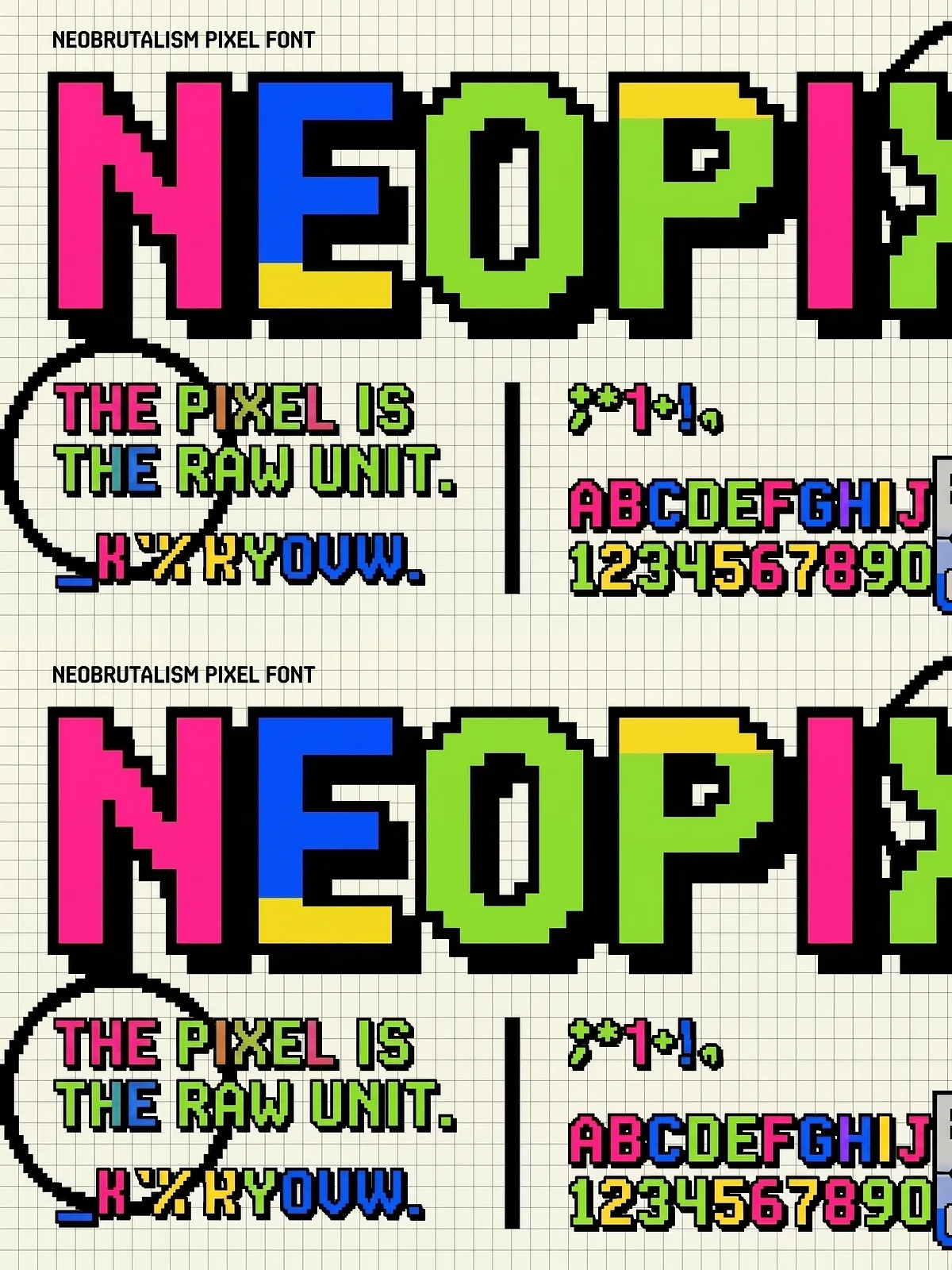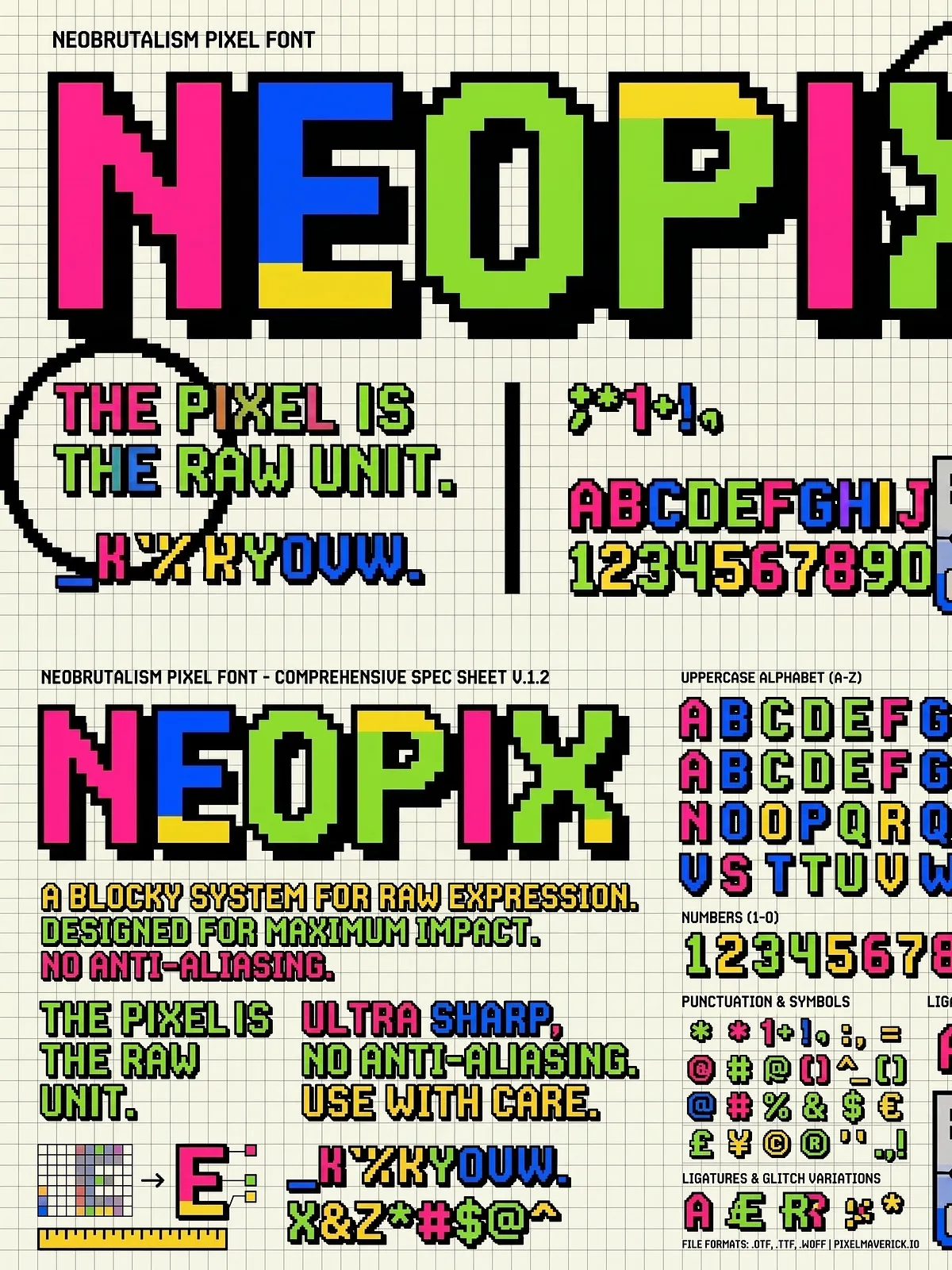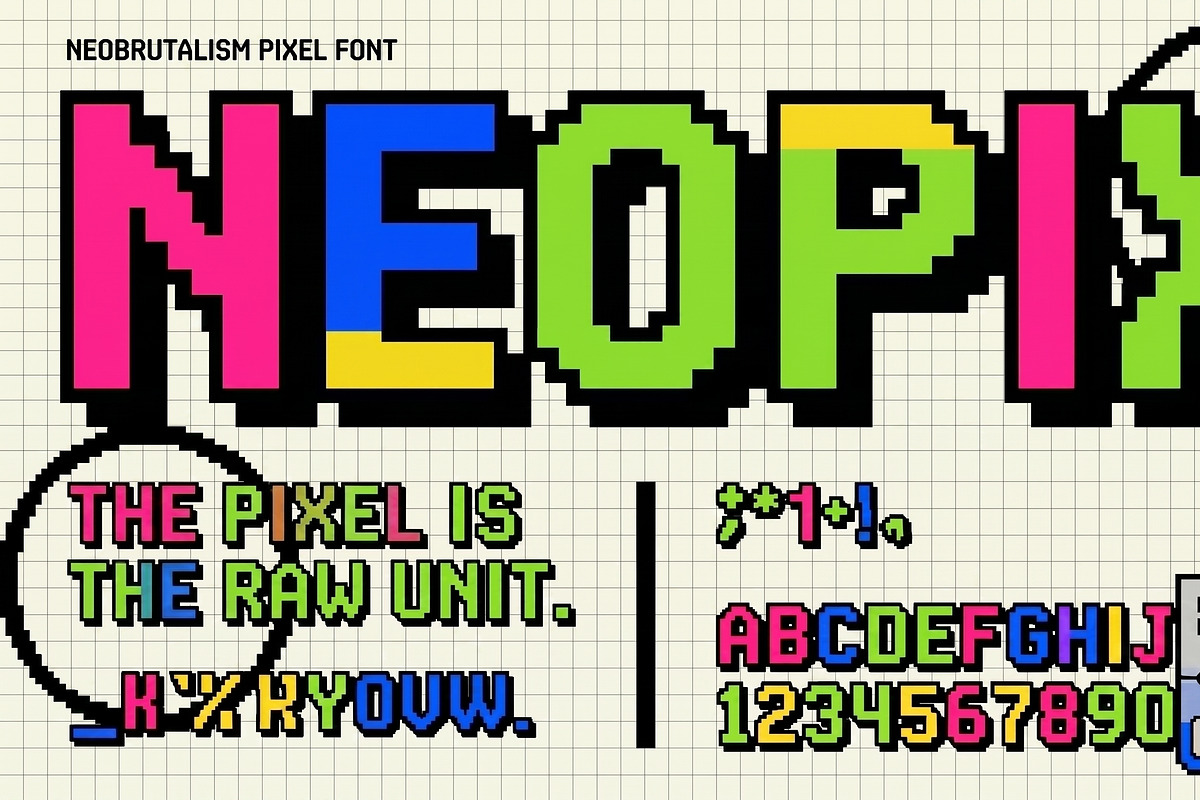
NEOPIX delivers unapologetic, pixel-powered personality. This display font fuses the raw, blocky intensity of neobrutalism with the playful geometry of classic 8-bit pixel art. Chunky letterforms, thick outlines, and crisp pixel edges combine to create a typeface that demands attention and holds it. Designed for large-scale headlines and display treatments, NEOPIX injects retro-digital energy into modern branding, posters, apparel, and web design.
Character Set
- Uppercase and lowercase letters
- Numerals and full punctuation
- Multilingual support covering the Latin character set
Perfect For
NEOPIX excels when you need bold visual impact. Use it to power:
- Gaming logos and identity systems that lean into retro aesthetics
- Event posters and flyers that require immediate legibility and attitude
- Streetwear and apparel graphics seeking a vintage-digital edge
- Social media and ad creatives that must stop the scroll
- Web headers and UI hero sections that need playful ruggedness
- Packaging and product labels that call for graphic punch
Bold Pixelated Neobrutalist Forms
NEOPIX uses chunky, geometric shapes and strong outlines to create a neobrutalist voice. The letterforms read solid and confident, delivering a contemporary reinterpretation of brutalist design through pixel geometry.
Playful Retro-Digital Aesthetic
The font embraces 8-bit charm without sacrificing modern clarity. Pixels and precise edges create a nostalgic feel while remaining clean and crisp at display sizes.
Optimized for Display
NEOPIX performs best at larger sizes where its blocky texture and high contrast come alive. The font retains detail and legibility when used for banners, headers, and printed signage.
Usage & Best Practices
Headline and Display Use
Rely on NEOPIX for headlines, logotypes, and display-only applications. Pair it with a neutral body font — a simple sans or clean serif — to maintain readability in paragraph text.
Styling Tips
To maximize NEOPIX’s retro-digital character, combine it with high-contrast color palettes, halftone textures, or grain overlays. Use strong negative space and bold backgrounds to emphasize the blocky forms. When producing apparel or screen-printed pieces, test stroke widths and contrast at final production sizes to ensure crisp output.